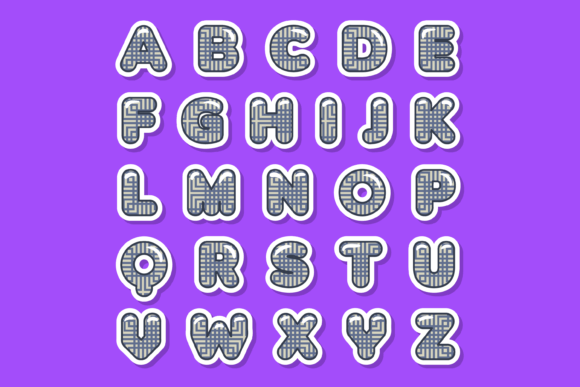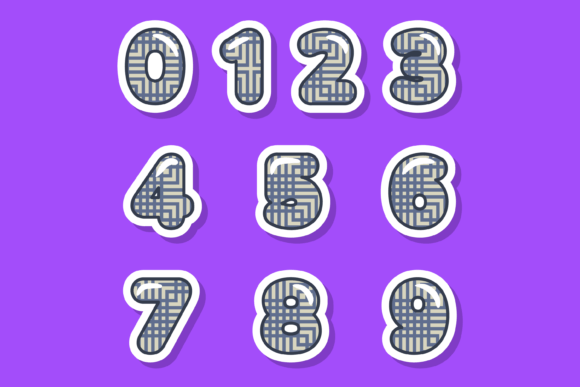
Indeed, Japanese Frame is an incredibly cool color font that can add a unique and captivating touch to your creative projects. Whether you’re working on custom designs, engaging in DIY crafts, or looking to enhance any creation with a lovely touch, Japanese Frame is an amazing choice.
This font is inspired by the aesthetic of traditional Japanese frames and motifs. It features intricate patterns, delicate lines, and vibrant colors that evoke the beauty and elegance of Japanese art and design. Each letter is carefully crafted to resemble a decorative frame, allowing you to create visually stunning compositions with ease.
Japanese Frame is highly versatile and can be used in various design applications. Whether you’re designing invitations, posters, logos, packaging, or any other visual content, this font will bring a touch of Japanese-inspired charm to your work. Its unique combination of colors and decorative elements make it particularly suitable for projects that aim to evoke a sense of elegance and sophistication.
Customization is made easy with Japanese Frame. You can adjust the size, spacing, and color of the font to suit your specific design needs. Its PUA encoding ensures easy access to all the amazing glyphs and ligatures, allowing you to experiment and create beautiful compositions that reflect the spirit of Japanese art and design.
The cool and captivating aesthetic of Japanese Frame makes it an excellent choice for adding visual interest and impact to your designs. Whether you’re aiming for a modern interpretation of Japanese aesthetics or a more traditional approach, this font can adapt to your creative vision. Its intricate patterns and vibrant colors make every letter a decorative element, enhancing the overall beauty of your creations.
Choose Japanese Frame to elevate your designs and make them stand out. Let its cool color font style and Japanese-inspired motifs bring a touch of elegance and cultural richness to your projects. With this incredible font, your creations will capture attention and convey a unique visual narrative.
Embrace the beauty and artistry of Japanese Frame, and make it your go-to choice for any design project that requires a lovely touch and a distinct visual impact. Whether you’re working on personal projects, cultural events, or artistic endeavors, this font will infuse your work with the charm and grace of traditional Japanese design.